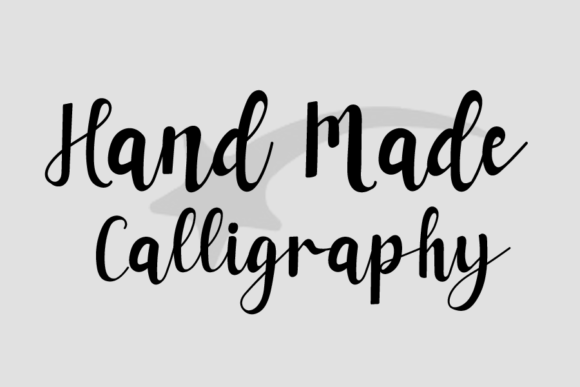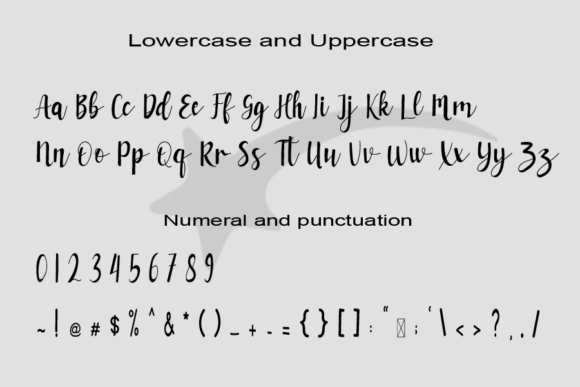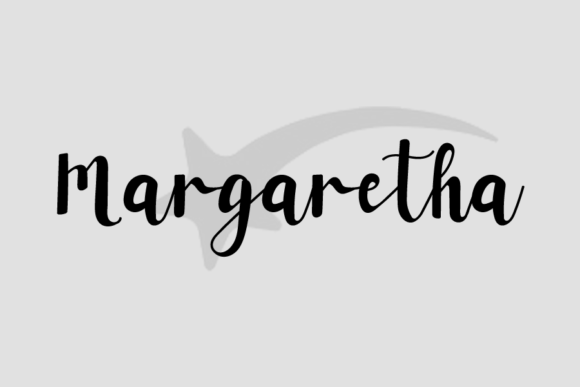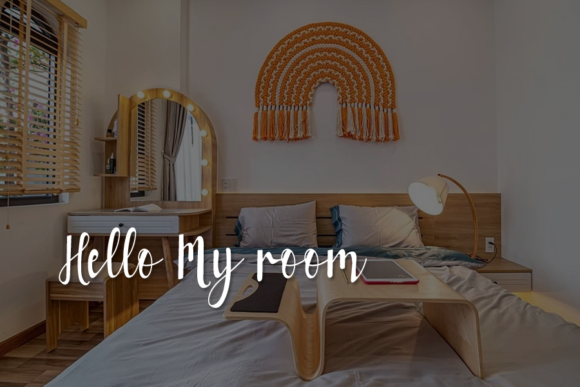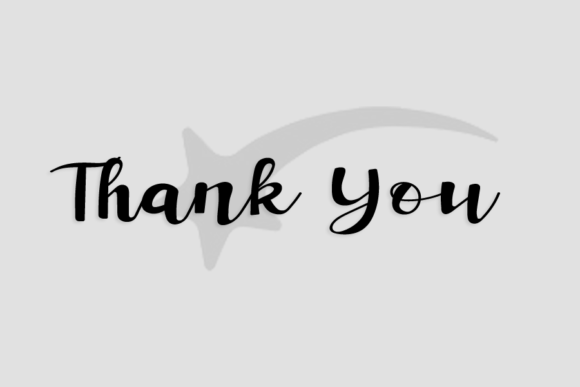
The Amsterdam Font: A Charming Script to Elevate Your Designs
I still remember the time I was working on a project for a client who wanted a font that would make their brand stand out. I had spent hours browsing through font libraries, but nothing seemed quite right. That was until I stumbled upon the Amsterdam font. Its charming, playful characters seemed to dance along the baseline, and I knew I had found the perfect fit. In this article, I’ll share my experience with the Amsterdam font, its features, and how to make the most of it in your designs.
A Personal Review of Amsterdam Font
- ✅ Charming and playful characters that add a touch of personality to any design
- ✅ Support for OpenType features, glyphs, and stylistic alternates
- ✅ Works well for a variety of design projects, from branding to invitations and more
While the Amsterdam font is incredibly versatile, there are a few things to keep in mind:
- 🤔 May not be the best choice for very formal or corporate designs, as it has a more playful tone
- ⚠️ Some characters may not work well at very large or very small font sizes, so it’s best to test it out before finalizing your design
The Story Behind Amsterdam Font
The Amsterdam font was designed by a team of creatives who wanted to create a font that would capture the playful, charming spirit of the city. Inspired by the city’s canals, architecture, and vibrant cultural scene, they crafted a font that’s both elegant and fun. The result is a font that’s perfect for designs that need a touch of personality and whimsy.
| Font Name | Amsterdam Font |
| Author | Alfa studio |
Q: What type of designs is the Amsterdam font best suited for?
A: The Amsterdam font is versatile and can be used for a variety of designs, including branding, invitations, packaging, and more.
Q: Is the Amsterdam font available in different weights or styles?
A: The Amsterdam font may come in different weights or styles, depending on the version you have. Be sure to check the font’s documentation for more information.